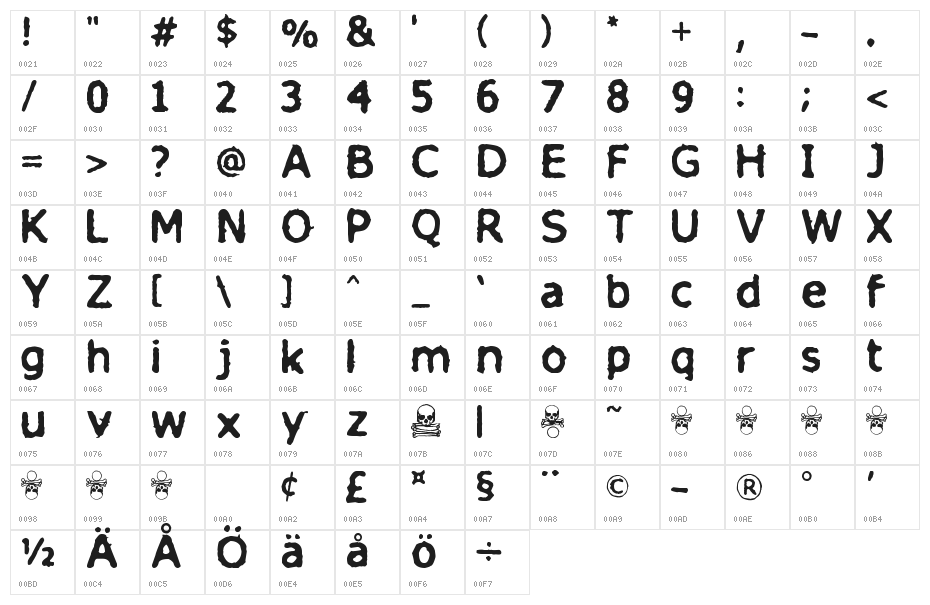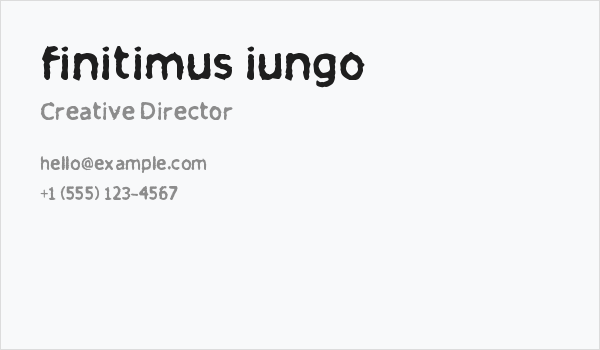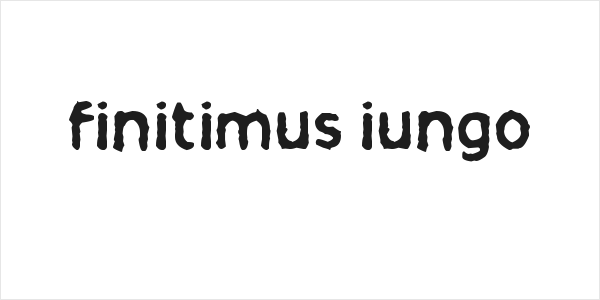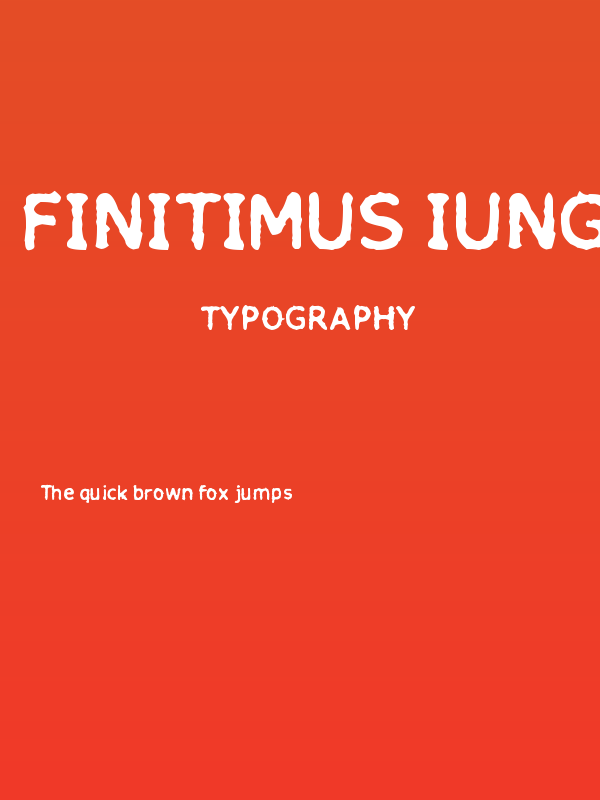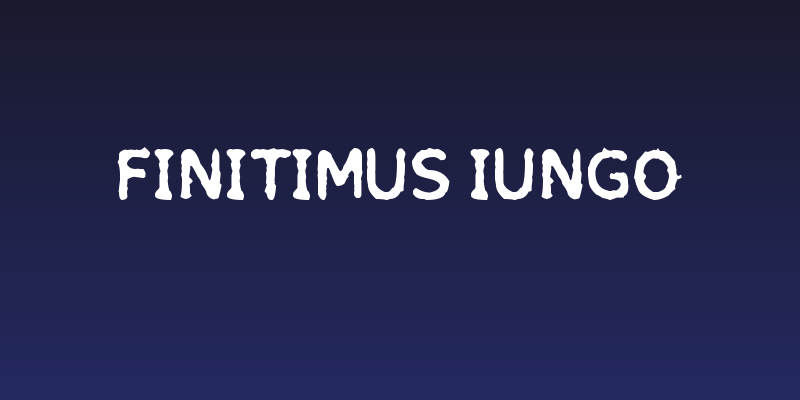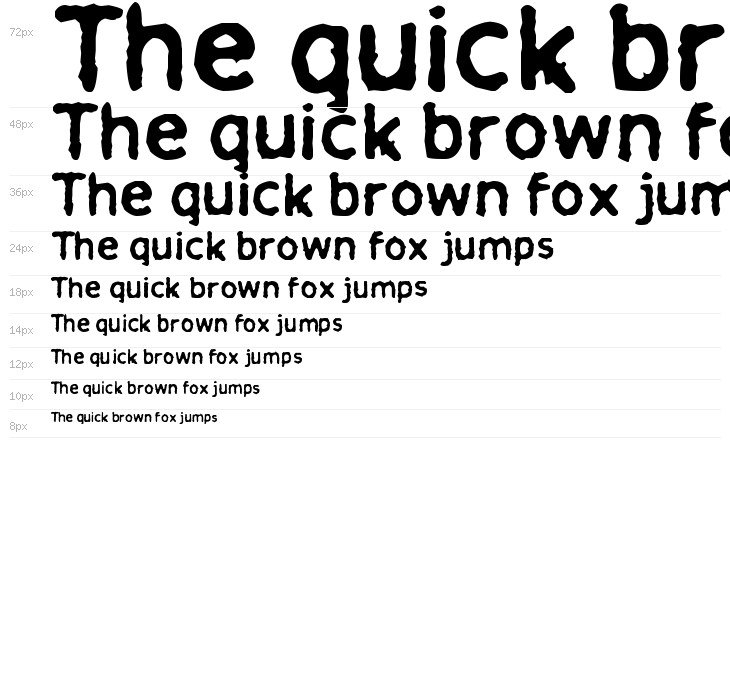
finitimus iungo Font
finitimus iungo Description
This font features a bold and rugged appearance with irregular, hand-drawn strokes that give it a distinctive, organic feel. The characters are slightly uneven, adding to the font's charm and making it ideal for projects that require a personal touch. The uppercase and lowercase letters maintain a consistent style, while the numerals and special characters complement the overall design. The font's unique texture and playful nature make it stand out, providing a sense of creativity and individuality.
| Proposed Projects | Ideal for creative projects such as posters, album covers, children's books, and branding that seeks a personal, handcrafted look. |